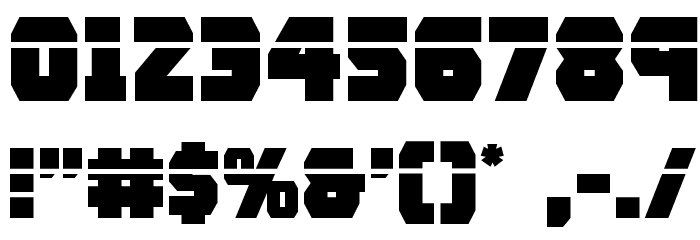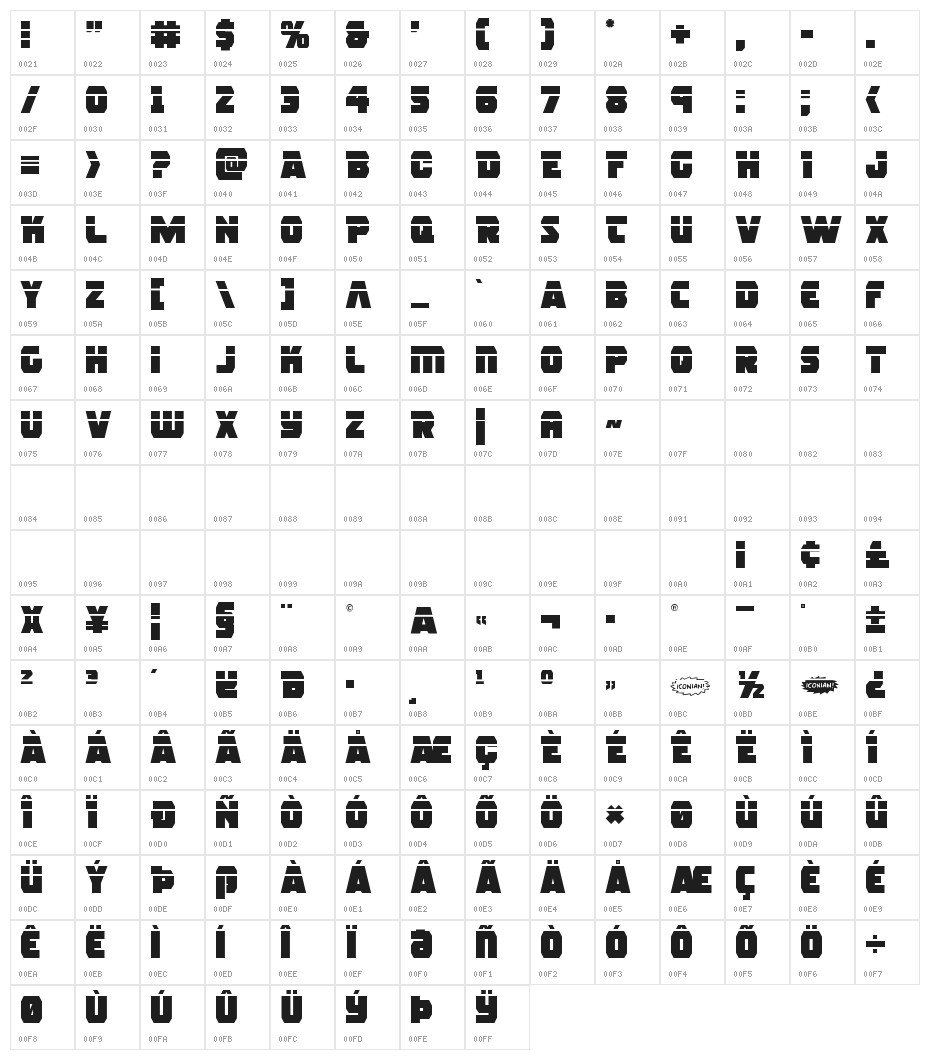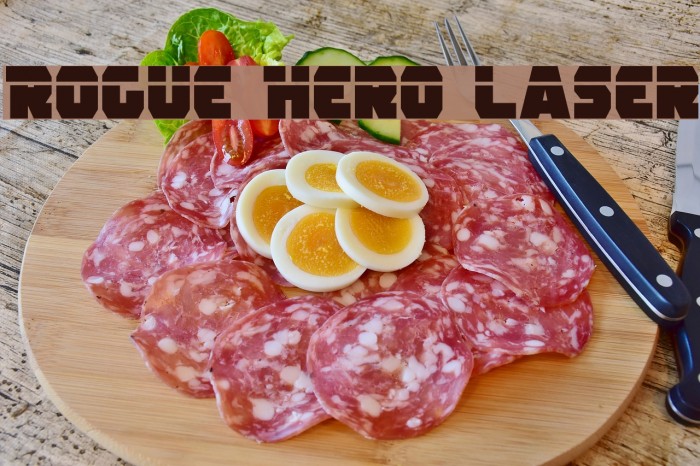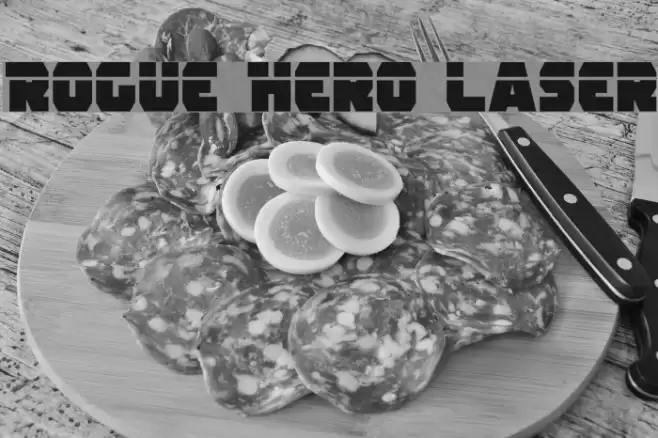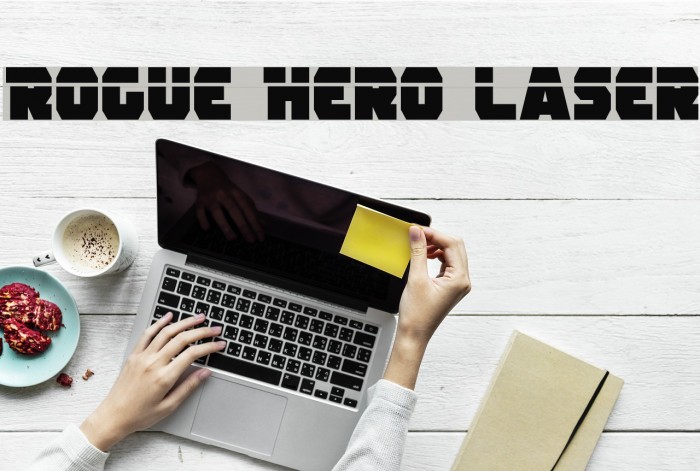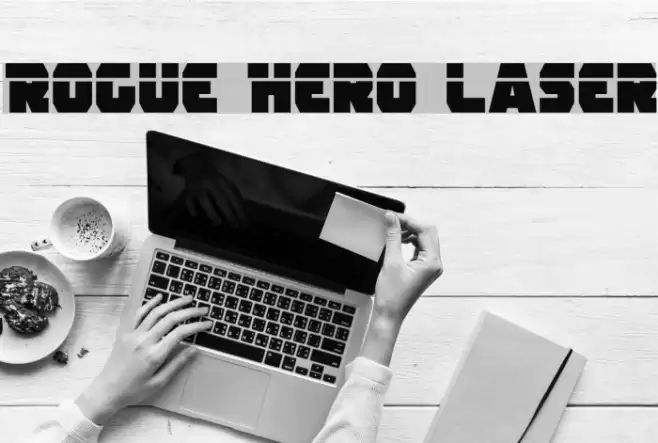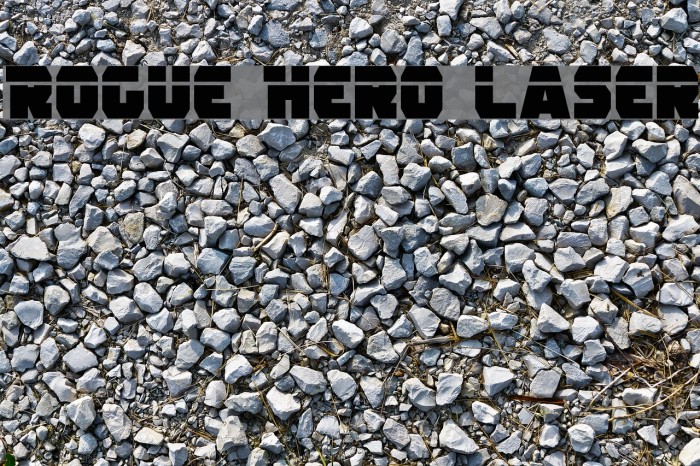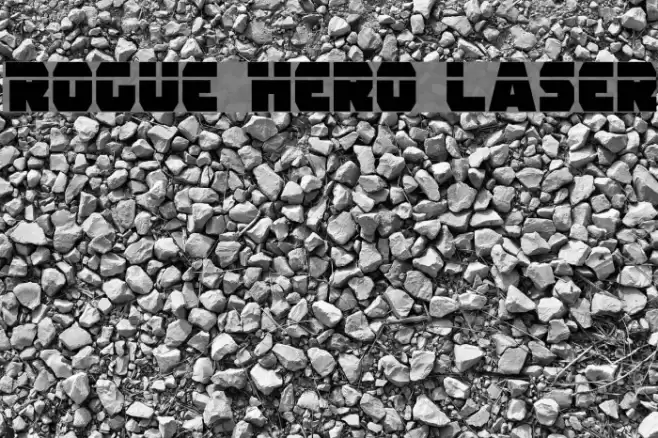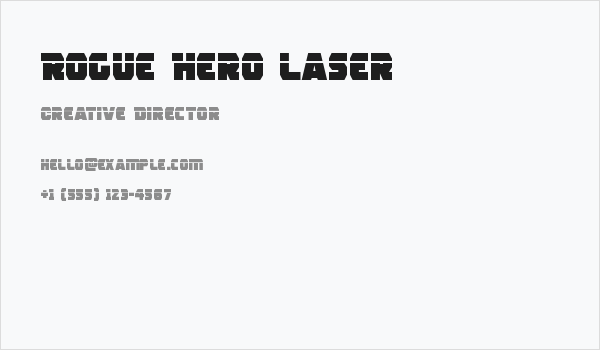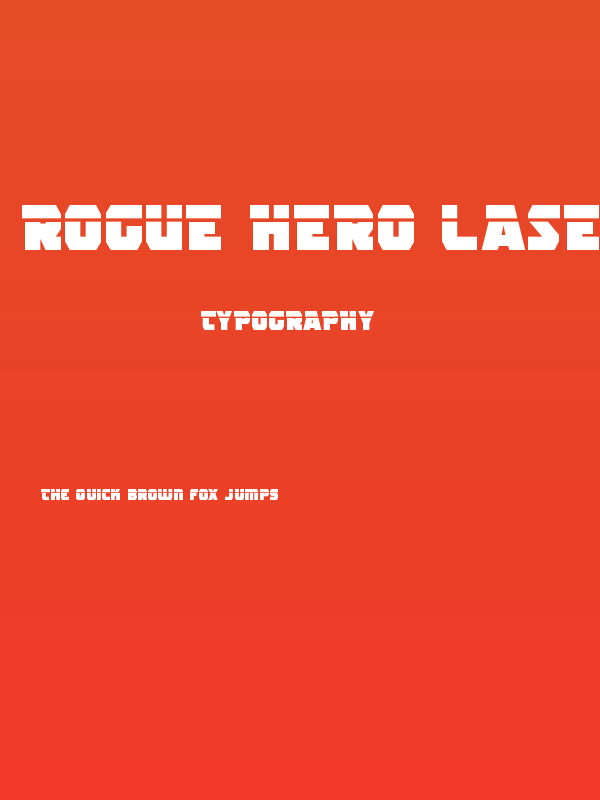
Rogue Hero Laser Font
Rogue Hero Laser Description
This font features a bold, geometric design with a futuristic and industrial aesthetic. The characters are constructed with sharp angles and straight lines, giving them a robust and sturdy appearance. The uppercase and lowercase letters maintain a consistent style, with the lowercase being slightly smaller but equally bold. The numbers and special characters follow the same design principles, ensuring uniformity across all glyphs. This font's strong visual impact makes it suitable for attention-grabbing designs.
| Overall Style | Futuristic, Industrial |
| Proposed Projects | Ideal for sci-fi themed posters, video game titles, branding for tech companies, and any project requiring a modern, bold statement. |